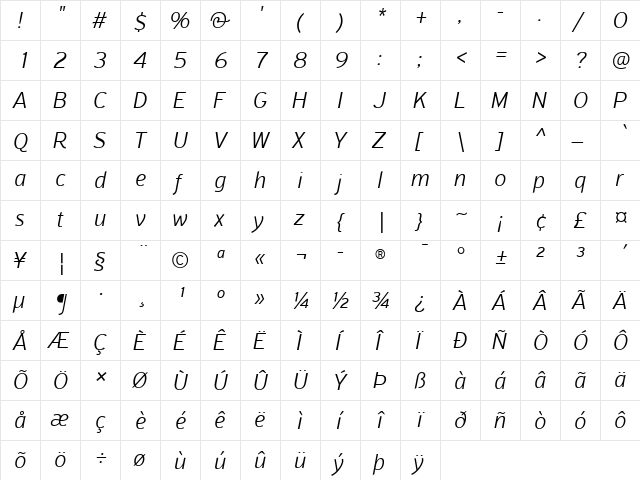
PF Highway Sans Pro Light Italic
| Foundry | Parachute蠗orldwide |
| Designer | Panos Vassiliou |
Design Context for PF Highway Sans Pro Typeface
PF Highway Sans Pro offers clean, dependable letterforms without strong stylistic allegiance, making it a practical choice for designers who need flexibility. The slanted form adds forward momentum and visual energy. Its slender proportions lend an understated elegance to any composition.